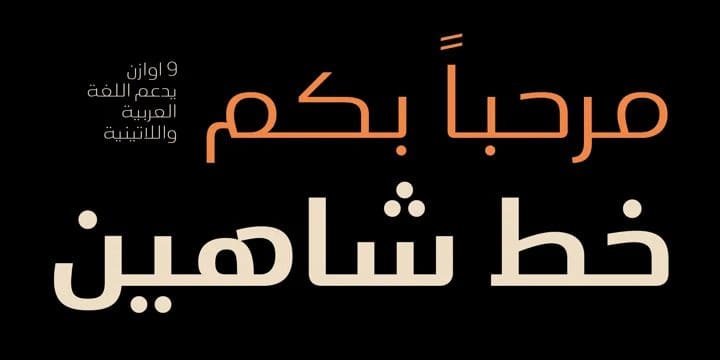
Shaheen Font Family
Shahin—meaning “royal falcon” or “majestic” in Persian—is a thoughtfully crafted typeface that brings regal elegance to Persian, Arabic, and English scripts. With its commanding presence and refined proportions, this font allows you to create projects that convey authority, sophistication, and timeless beauty across all three languages.
Design Characteristics:
• Majestic, regal Persian, Arabic, and English letterforms
• Commanding presence with elegant authority
• Balanced proportions for excellent readability
• Sophisticated design with timeless appeal
• Powerful yet graceful aesthetic
Persian (Farsi) Script:
• Complete Persian character set
• Full support for Persian-specific characters (گ، چ، پ، ژ)
• Correct representation of Persian numerals
• Proper character connections and positioning
• Regal styling across all letters
Arabic Script:
• Coordinated Arabic design matching Persian style
• Complete Arabic character set
• Full support for Arabic diacritics and marks
• Harmonious weight and proportion
• Majestic character with authentic roots
English/Latin Script:
• Coordinated English design matching Persian/Arabic style
• Complete uppercase and lowercase characters
• Numerals, punctuation, and special characters
• Elegant, authoritative appearance
• Harmonious with Eastern scripts
• Luxury Branding: Regal identities for premium brands
• Corporate Communications: Authoritative business materials
• Editorial Design: High-end magazines and publications
• Packaging: Sophisticated product presentation
• Logos: Memorable, powerful wordmarks
• Ceremonial Projects: Formal events, certificates, awards
• Architectural Signage: Commanding displays
• Cultural Institutions: Museums, galleries, heritage centers
• Publishing: Elegant books and scholarly works
• Regal Character: Majestic, authoritative presence
• Three Scripts, One Design: Consistent identity across Persian, Arabic, and English
• Comprehensive Support: All characters for all three languages
• Professional Quality: High-caliber font for commercial use
• Sophisticated Appeal: Perfect for luxury and formal projects
• Time-Saving: One font for three languages—no mixing required
Key Features of Shahin Font:
• Complete support for Persian (Farsi), Arabic, and English scripts
• Majestic, regal design with commanding presence
• Full character sets for each script
• Elegant, authoritative aesthetic
• Perfect for luxury, ceremonial, and cultural projects
• Luxury brand designers
• Corporate communications professionals
• Cultural institution designers
• Ceremonial and event specialists
• Publishers of elegant materials
• Anyone needing regal, authoritative multilingual typography